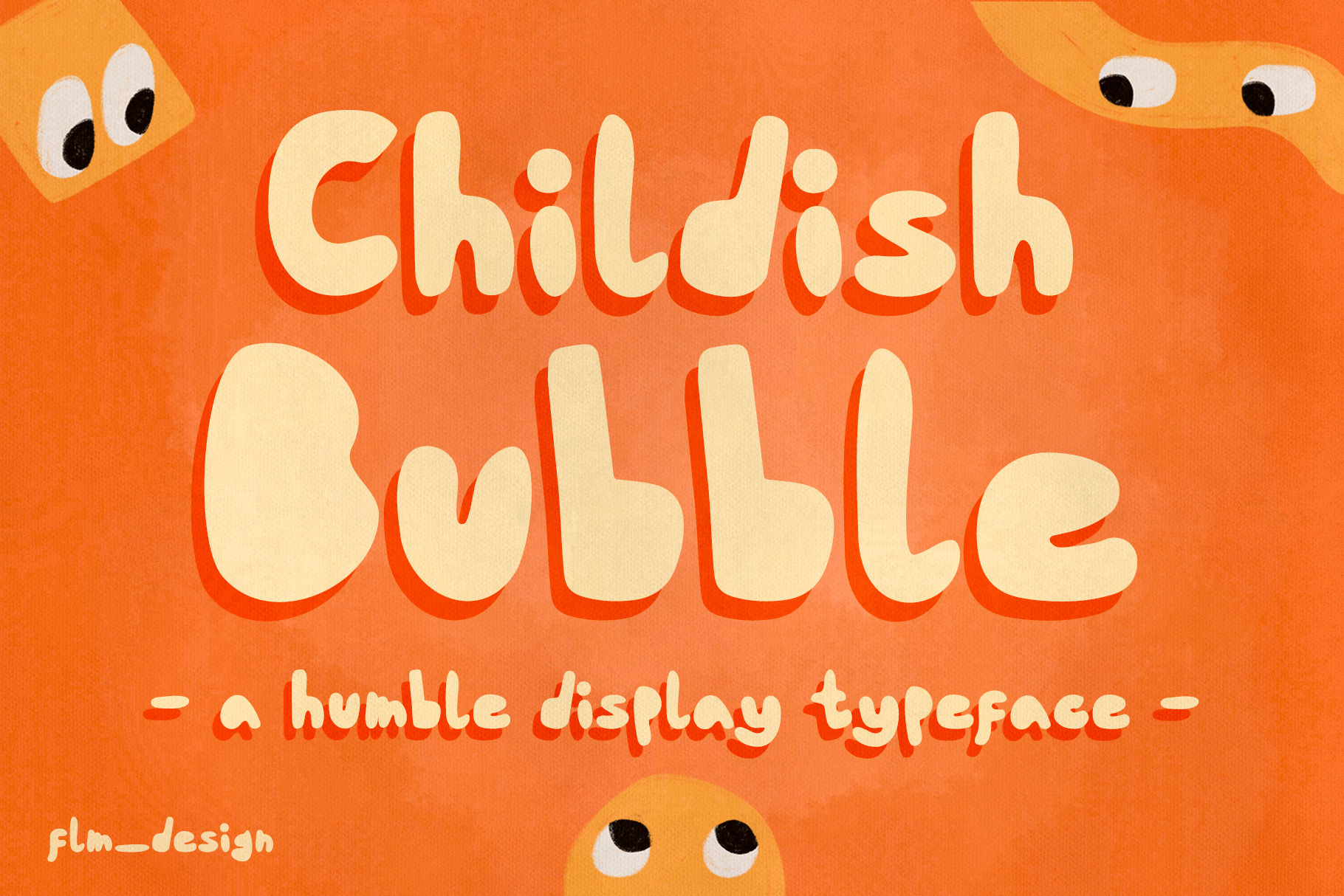
Childish Bubble Handwriting Typeface
Childish Bubble Display, a humble and easily legible typeface, with characters including lowercase, uppercase, numericals and basic symbols and punctuation.
This font is perfect for any projects, especially those with a fun and childish vibe such as logo, crafting, t-shirt, cards, branding, stickers, quotes, and more!